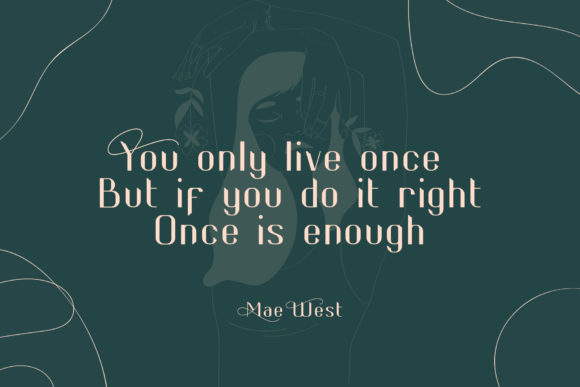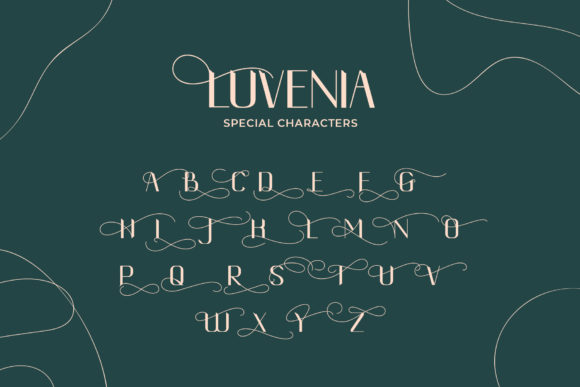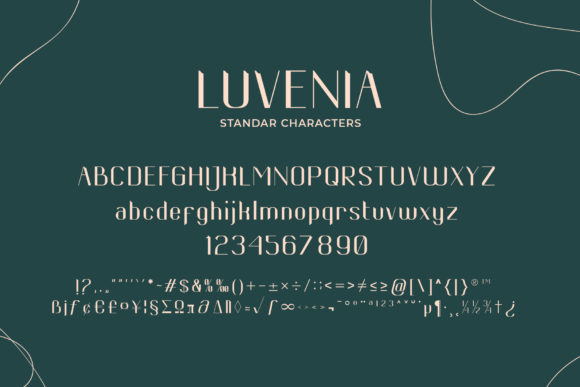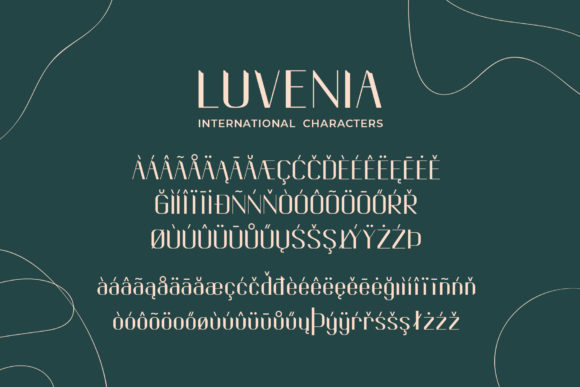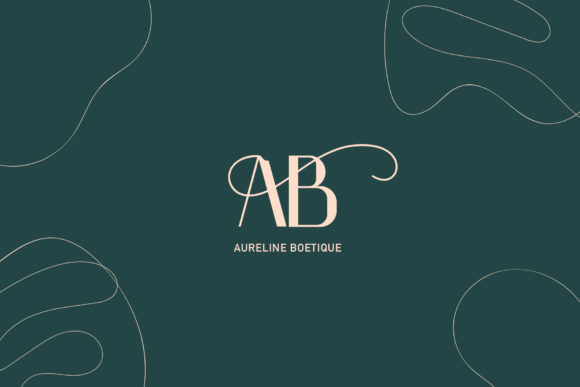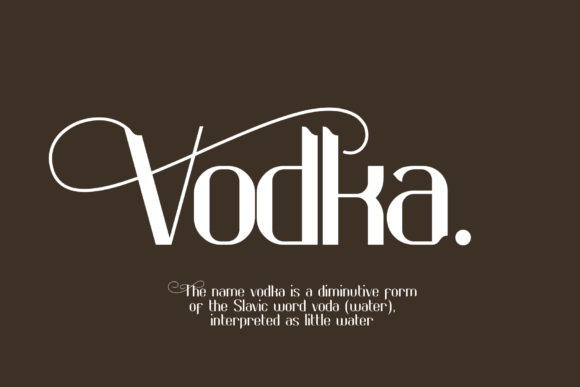
Introduction to Luvenia Font
As a designer, have you ever found yourself staring at a blank canvas, struggling to bring your creative vision to life? It’s a moment we’ve all experienced, and one that can be both exhilarating and daunting. But what if you had the perfect design resource to elevate your project and take it to the next level?
Enter the Luvenia Font, a stunning sans serif typeface that is poised to revolutionize the way you approach your creative projects. With its elegant and stylish aesthetic, Luvenia Font is the perfect addition to any design arsenal, whether you’re working on a logo, brochure, or website. And the best part? It’s available for free download, making it an invaluable resource for designers of all levels.
What sets Luvenia Font apart from other high-quality design resources is its unique balance of style and versatility. With a transparent background and varied font weights, Luvenia Font is the perfect tool for designers who want to add a touch of sophistication to their projects without sacrificing visual clarity.
Key Features of Luvenia Font
- Unique and elegant font style, perfect for adding a touch of sophistication to any creative project.
Honest Review: Luvenia Font
I recently stumbled upon the Luvenia Font while working on a creative project, and I must say, it’s a fantastic addition to my design resource arsenal. This font has a unique aesthetic that can elevate any design to the next level. The free download option is a definite plus, making it accessible to designers of all levels.
One of the standout features of the Luvenia Font is its high quality. The font is crisp, clean, and perfect for creating a professional look. I also appreciate the transparent background option, which allows for seamless integration with various design elements.
- ✨ Unique aesthetic that can elevate any design
- ✨ High quality and crisp lettering
- ✨ Transparent background option for seamless integration
However, I do have to mention a few limitations. The Luvenia Font may not be suitable for projects that require a more modern or minimalist look. Additionally, some users may find the font to be a bit too ornate for their taste.
- ⚠️ May not be suitable for modern or minimalist designs
- ⚠️ May be too ornate for some users
Overall, I’m thoroughly impressed with the Luvenia Font. It’s a versatile and high-quality design resource that can be used in a variety of creative projects. I highly recommend giving it a try, especially if you’re looking for a unique font to add some personality to your designs.
Tips for Getting the Most Out of Luvenia Font
For the best results, use Luvenia Font on a transparent background to create a clean and modern design. This font is ideal for creative projects that require a high-quality, elegant typography.
Luvenia Font is commonly used in logos, branding materials, and other design projects that require a sophisticated and elegant look. It’s also great for creating titles, headings, and body text for websites, magazines, and other publications.